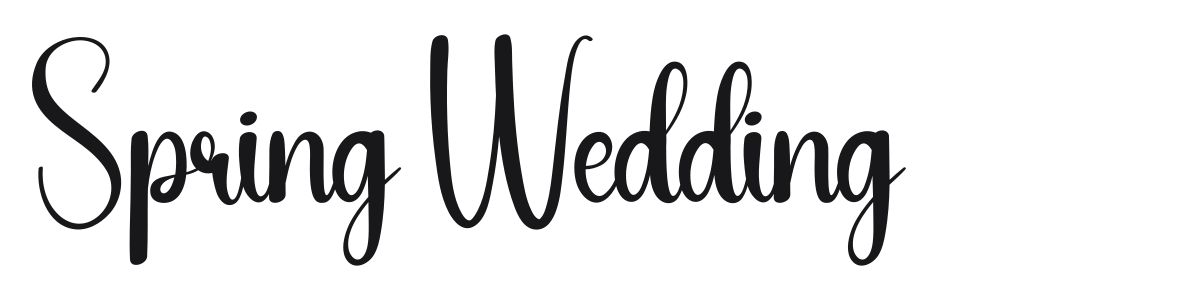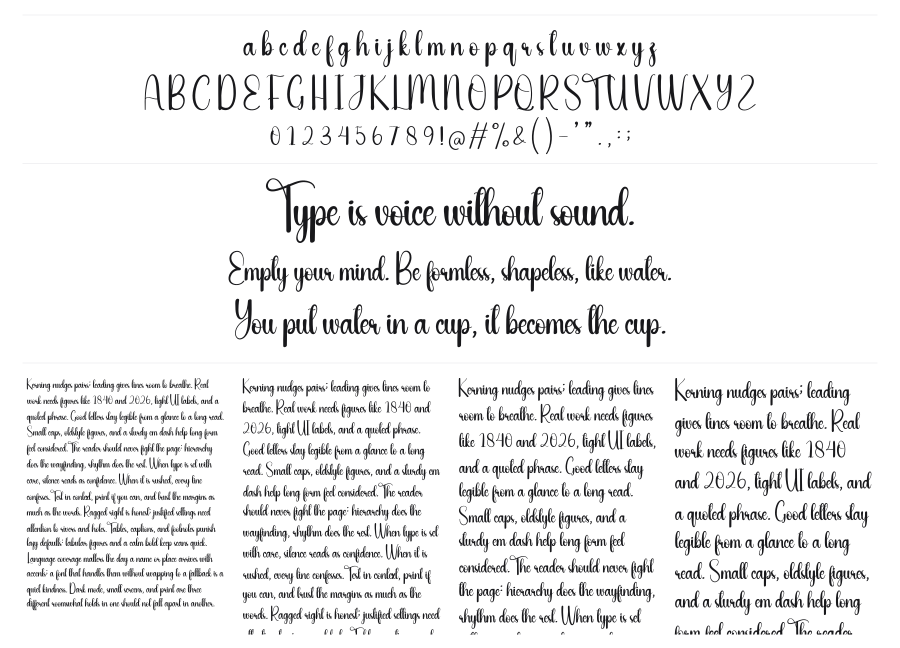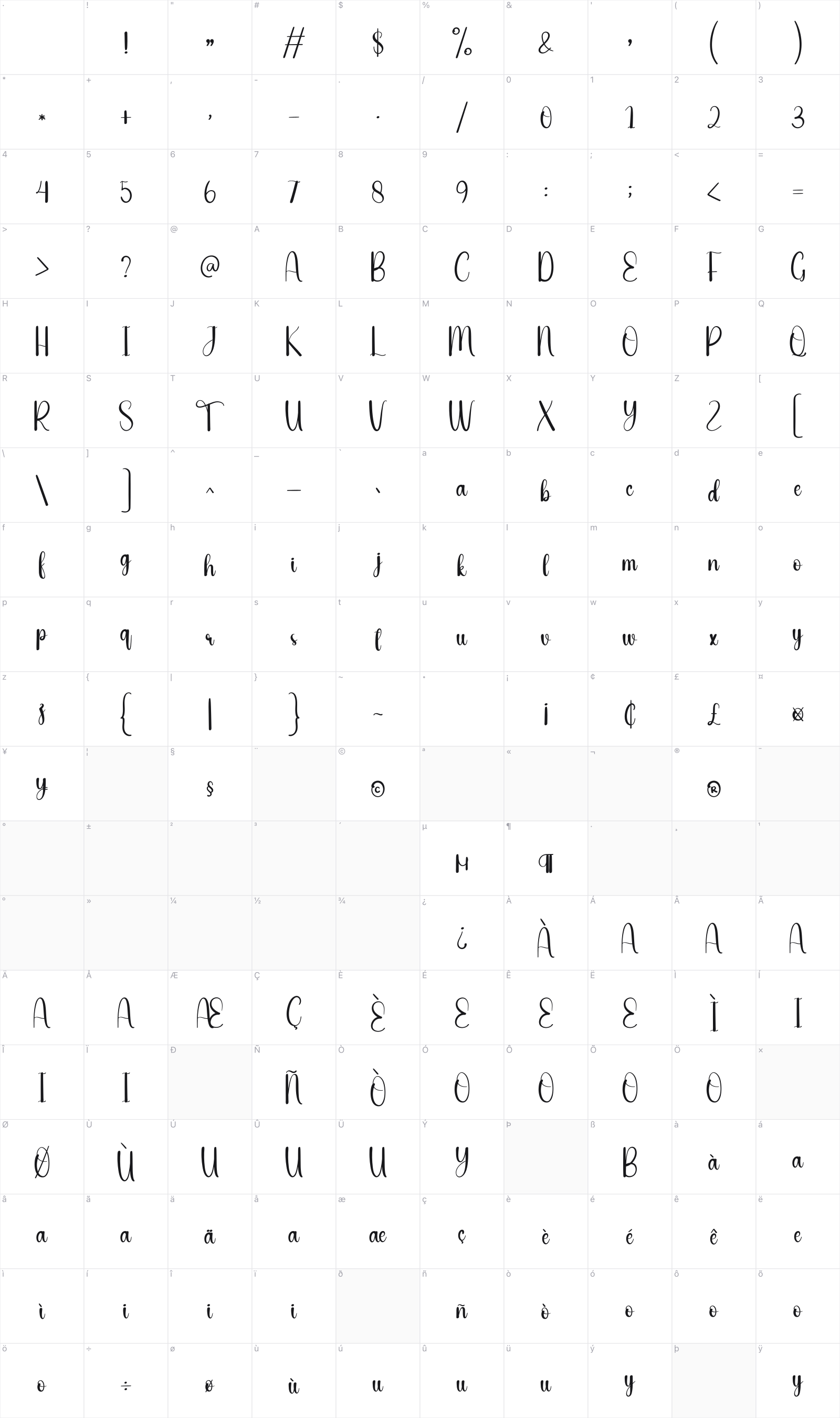
Spring Wedding
Spring Wedding is a bold, connected casual script with looped ascenders and a warm bouncy rhythm. The generous stroke contrast and flowing connections give it a handwritten energy that reads as both romantic and playful. It works best at large sizes for invitations, packaging, and branding where personality drives the design.